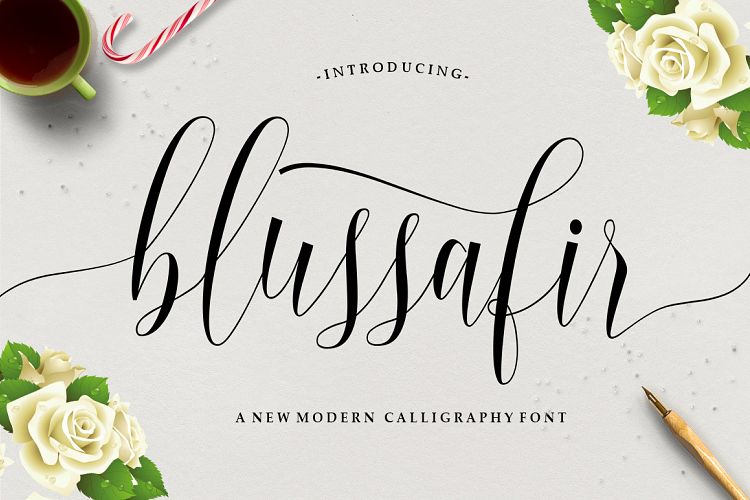
Blussafir Script Font
A new modern calligraphy typeface. A Super Cute script that works in both upper or lowercase perfectly. Free flowing lettering with a touch of personality. Introducing Blussafir Font. It is designed and shared by Great Studio. Blussafir Script Font modern calligraphy design, including Regular. This font is casual and pretty with swashes. Can used for various purposes. such as logo, product packaging, wedding invitations, branding, headlines, signage, labels, signature, book covers, posters, quotes and more.